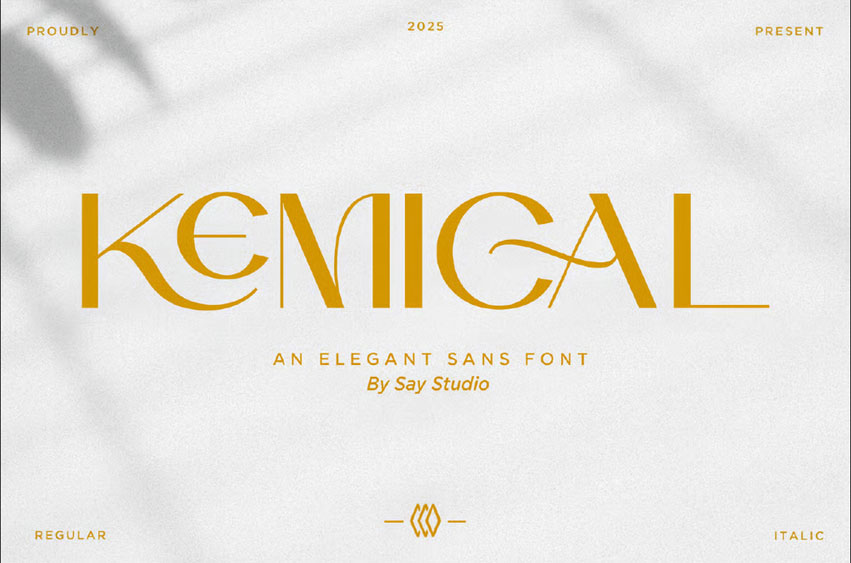
Kemical Font
Kemical Font is an elegant modern sans font crafted with sophistication and clarity. Designed for premium branding, editorial layouts, fashion imagery, and luxury packaging, this typeface blends sleek geometry with graceful curves to deliver a timeless visual impression.
Its refined letterforms and stylish alternates allow designers to create high-end, polished aesthetics across various creative projects.
Font Features :
• Regular & Italic Style
• Uppercase & lowercase
• Stylistic Ligatures